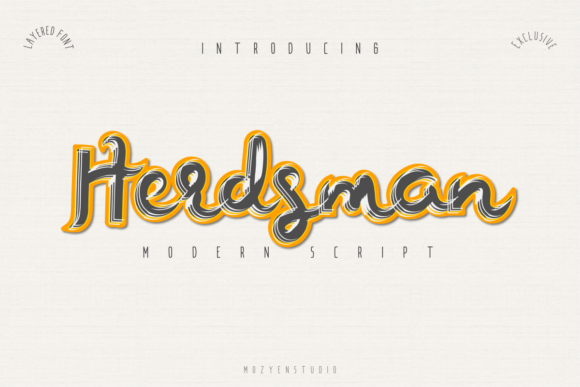
Introducing the Herdsman Font: Your Quest For Captivating Designs Ends Here!
In a world saturated with monotonous fonts, Herdsman Font emerges as a breath of fresh air, an artistic masterpiece that transforms your creative visions into mesmerizing realities. This modern script font, meticulously crafted by the skilled artisans at mozyenstudio, is not just a collection of letters; it's an artistic odyssey waiting to be explored.
With its graceful curves and enchanting flow, Herdsman Font weaves a spellbinding narrative that captivates the hearts and minds of your audience. Its versatility knows no bounds, seamlessly adapting to a myriad of creative endeavors. Whether you're designing logos that exude elegance, crafting social media posts that ignite engagement, or creating branding materials that leave an indelible mark, Herdsman Font is your trusted companion, guiding you towards design excellence.
Gone are the days of settling for ordinary fonts that blend into the background, unnoticed and unappreciated. Herdsman Font is a beacon of individuality, a font that commands attention, igniting a spark of curiosity and intrigue in the hearts of your audience. Its distinctive charm adds a touch of magic to your designs, transforming them into captivating works of art that resonate with your target audience.
With Herdsman Font, you're not just downloading a font; you're embarking on a creative journey, a voyage of artistic exploration where your imagination is the only limit. Unleash the boundless potential of your creativity and watch as your designs flourish into masterpieces, captivating your audience and leaving them yearning for more. The time for ordinary fonts is over; embrace the extraordinary with Herdsman Font today!